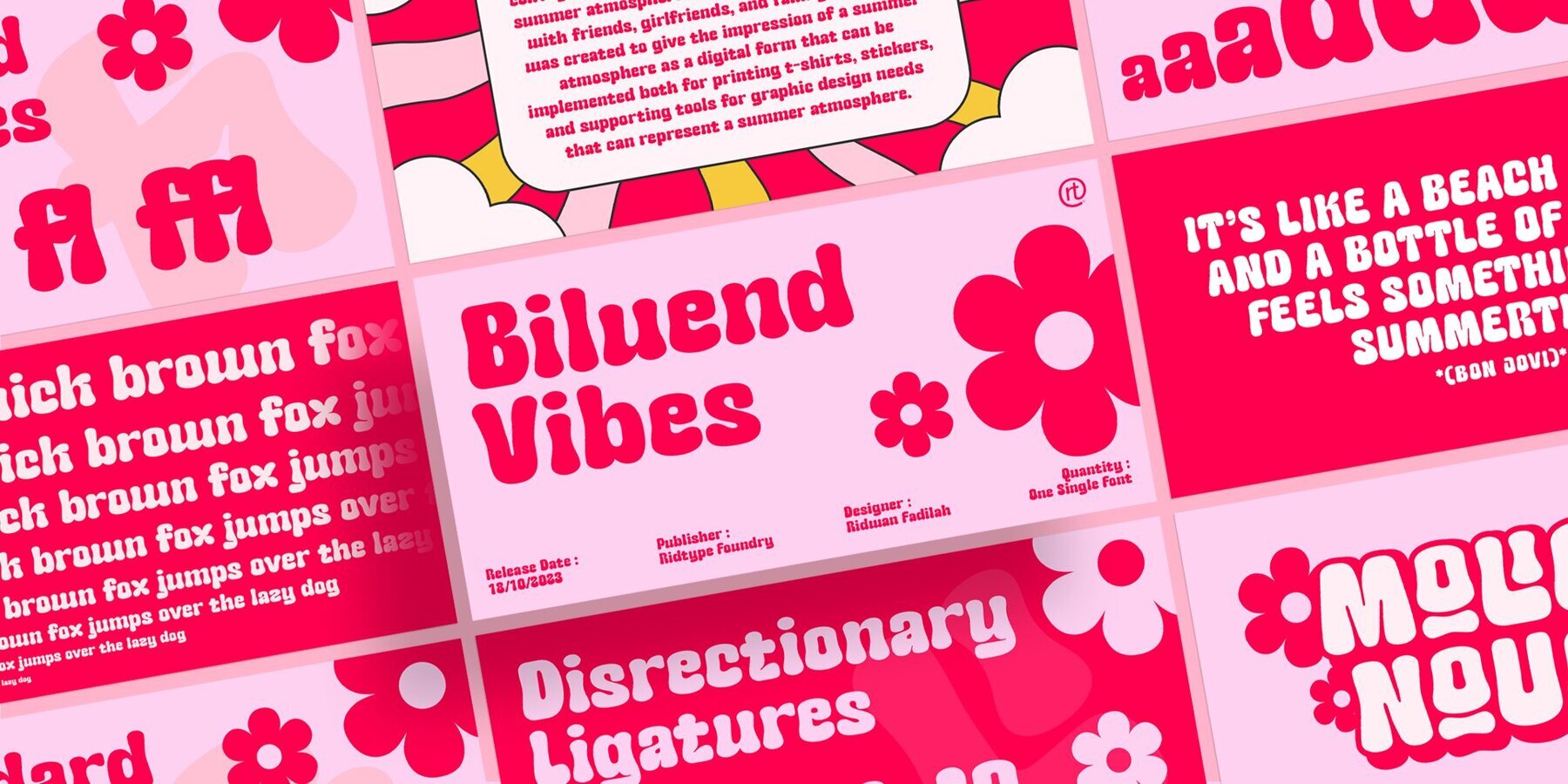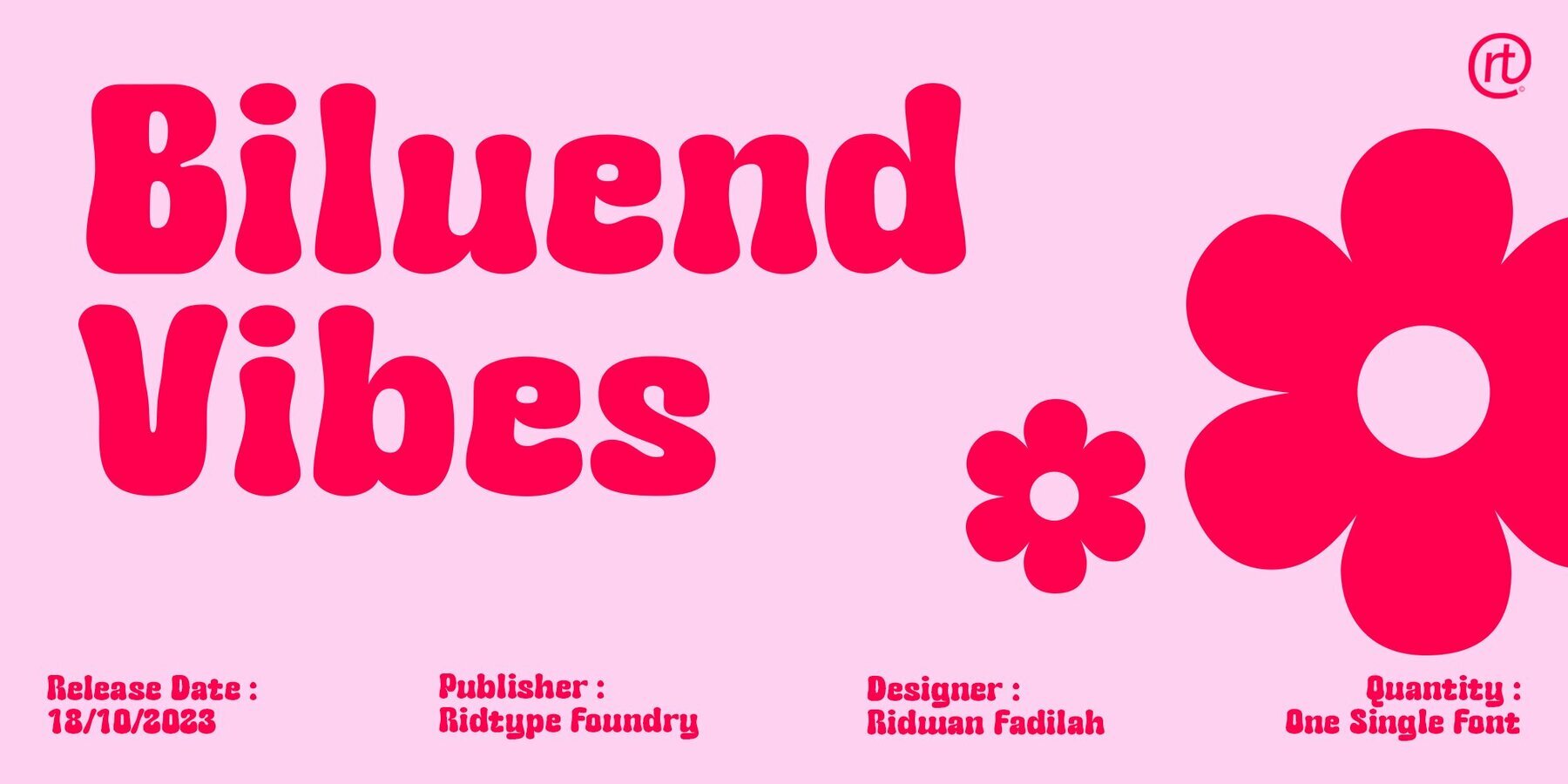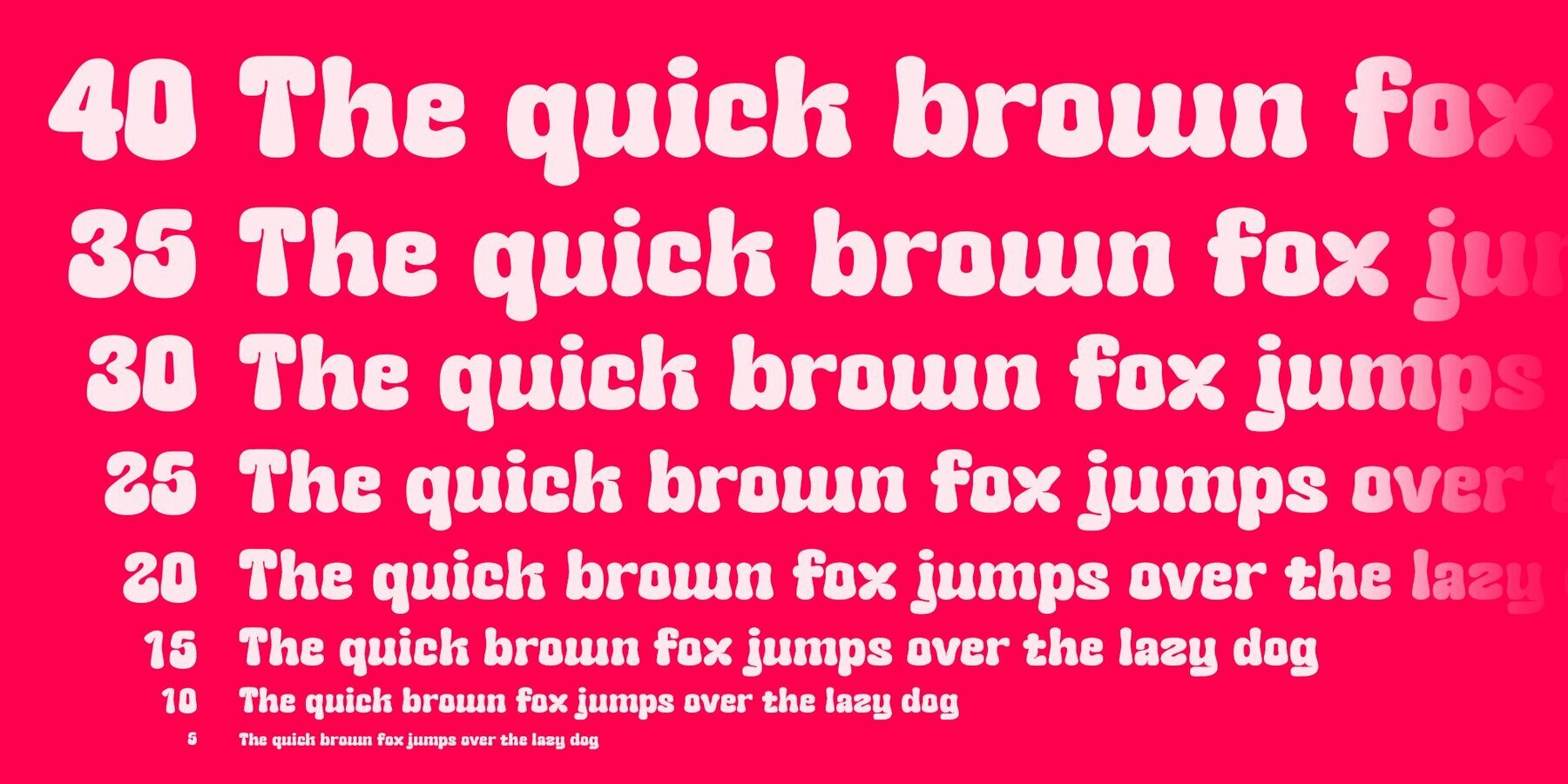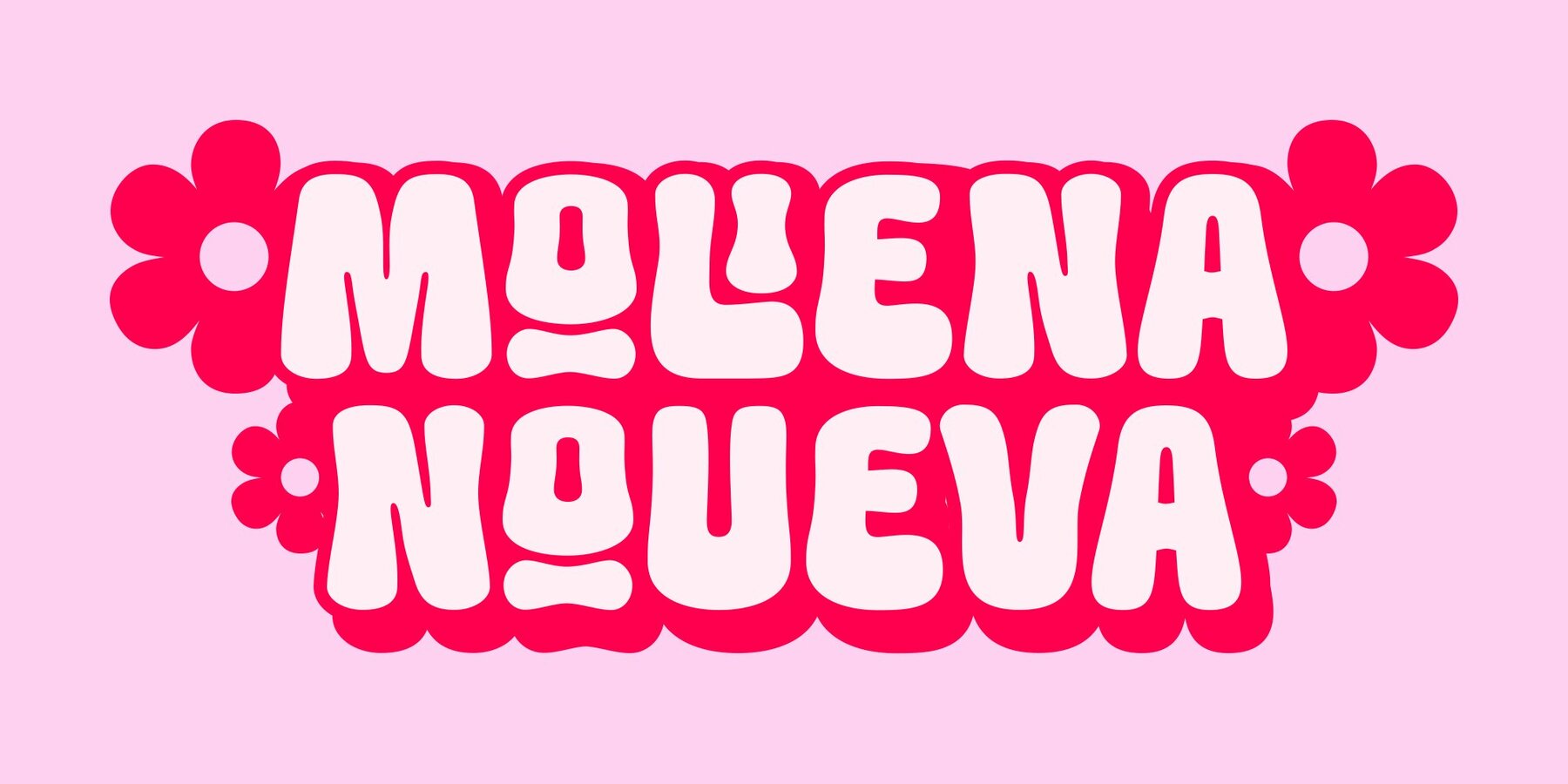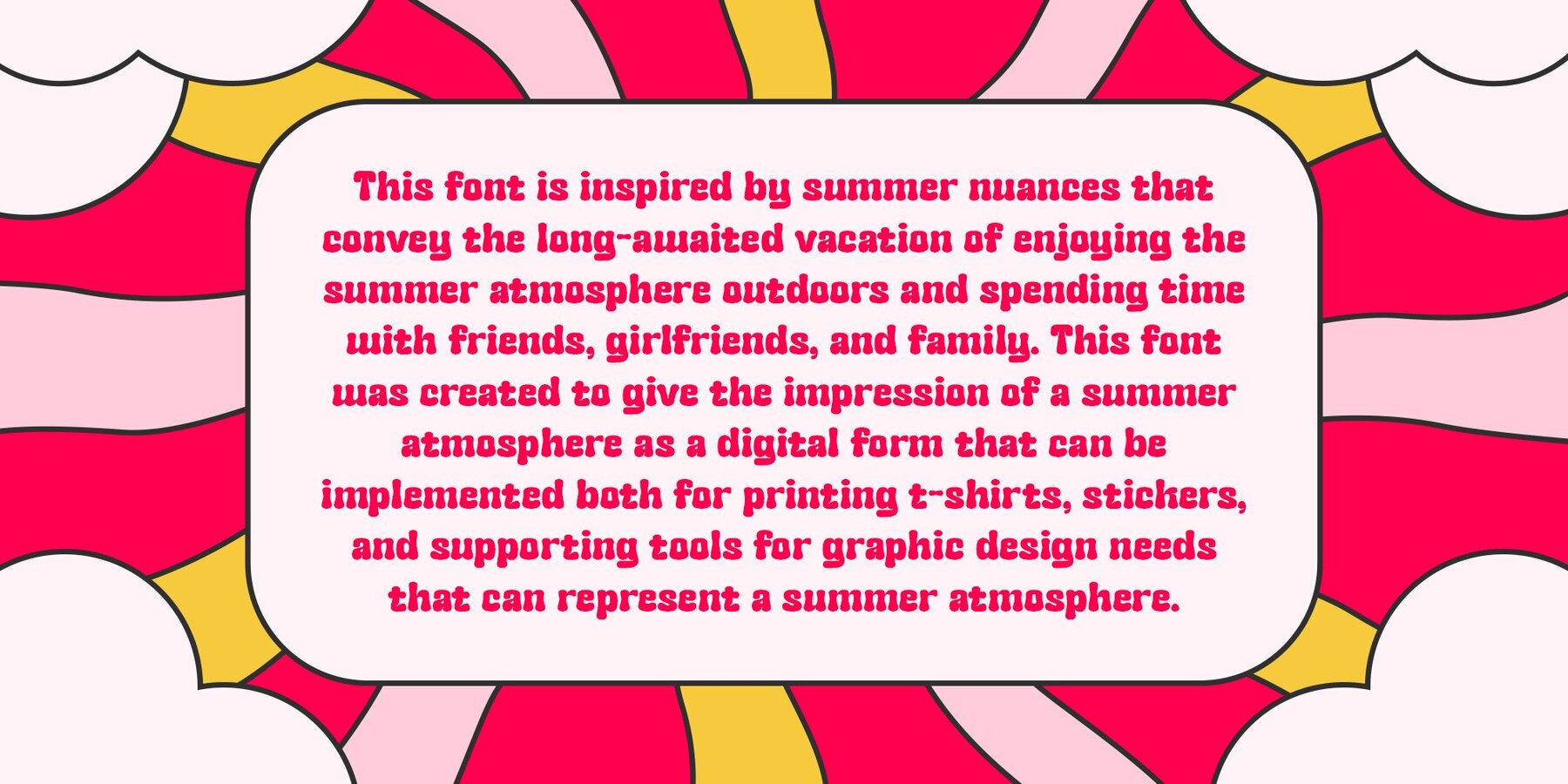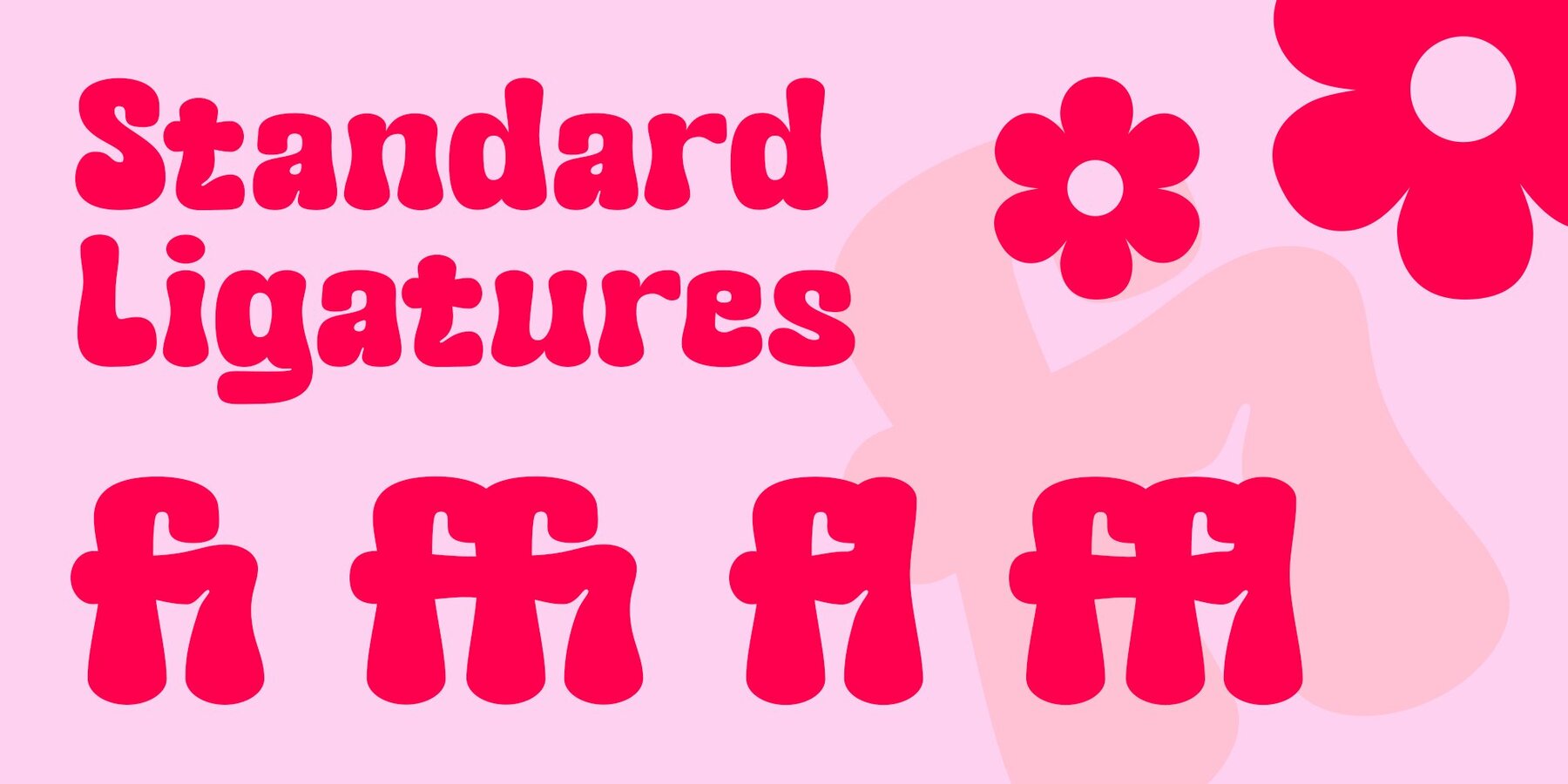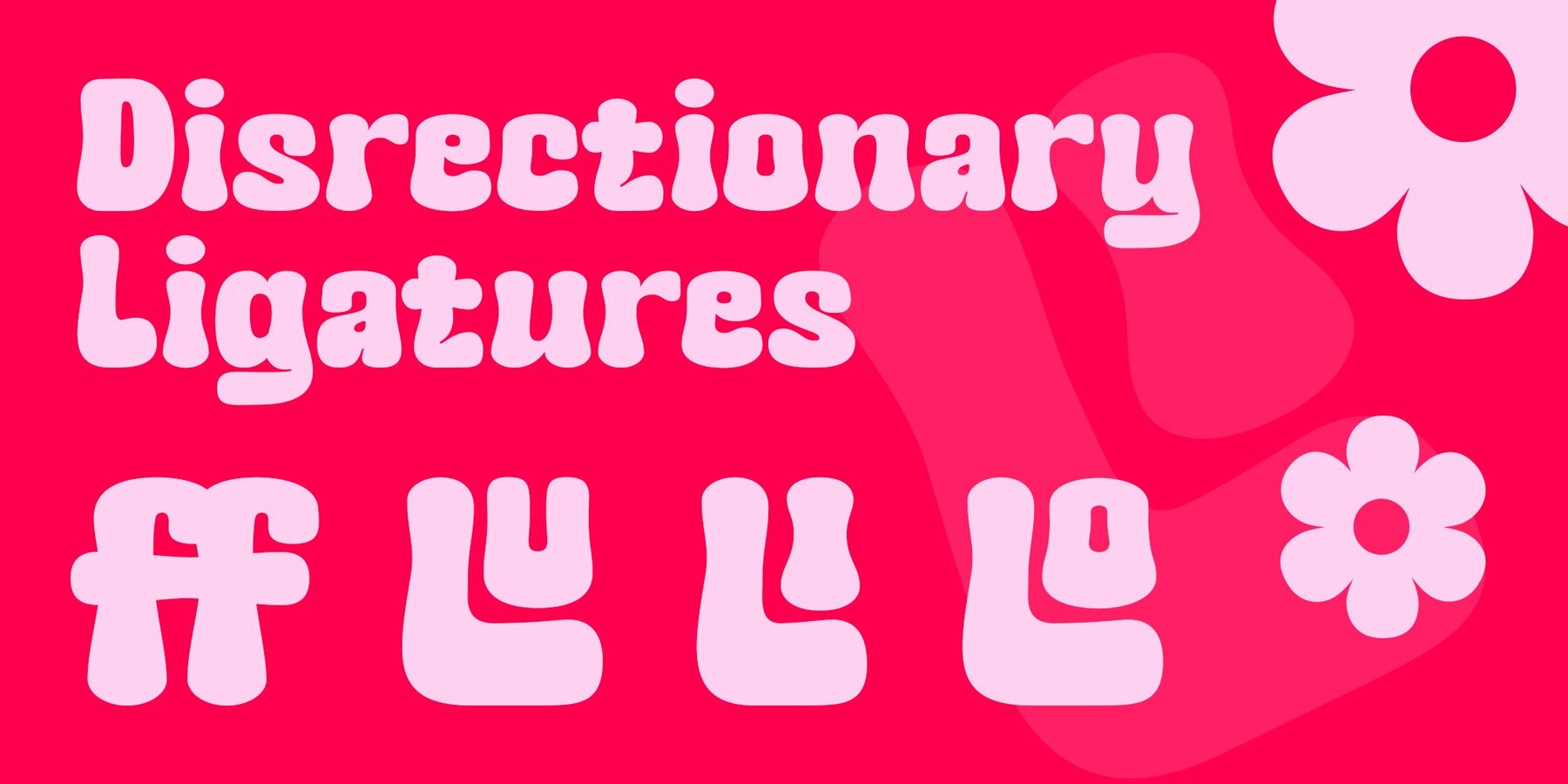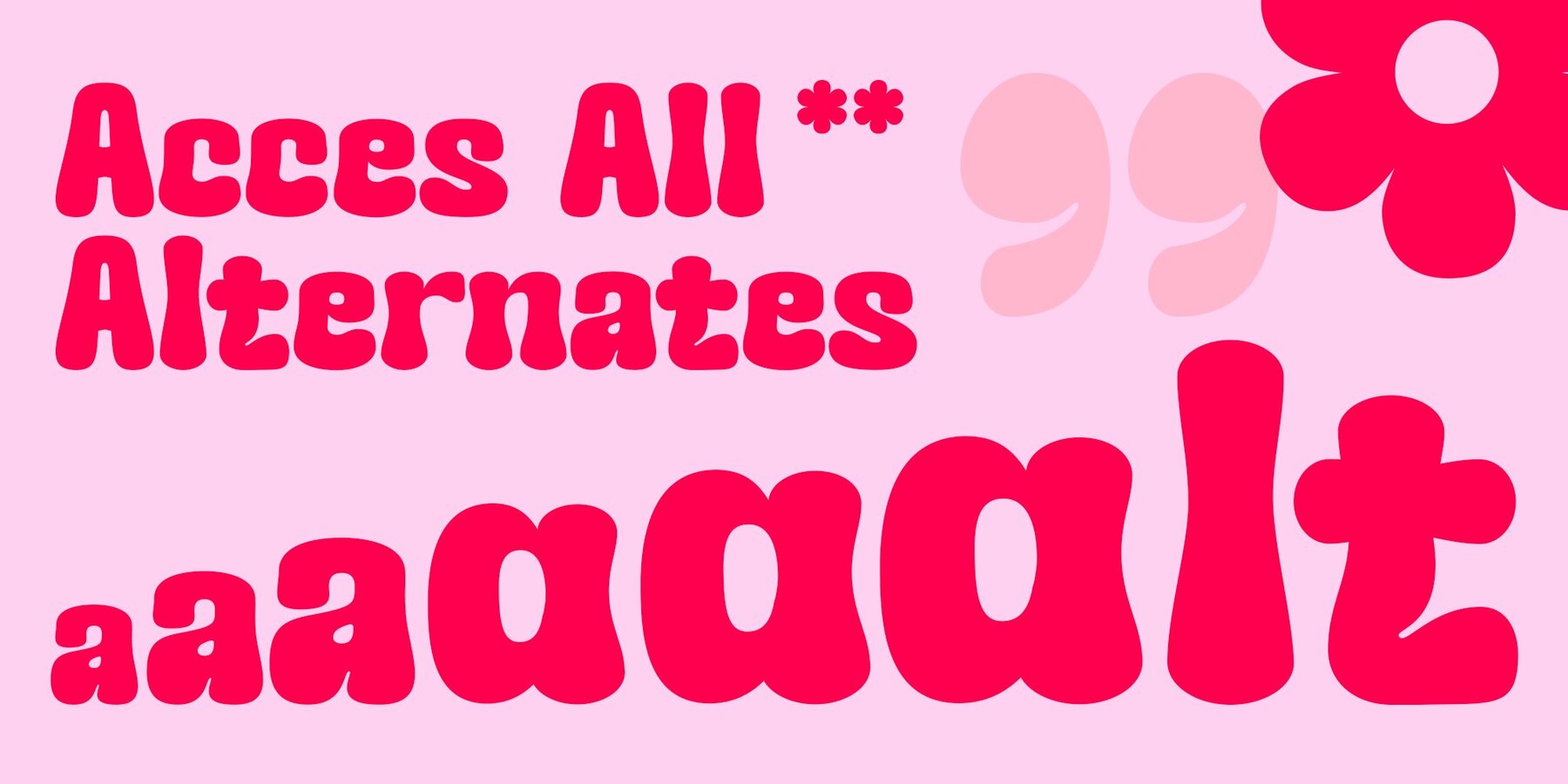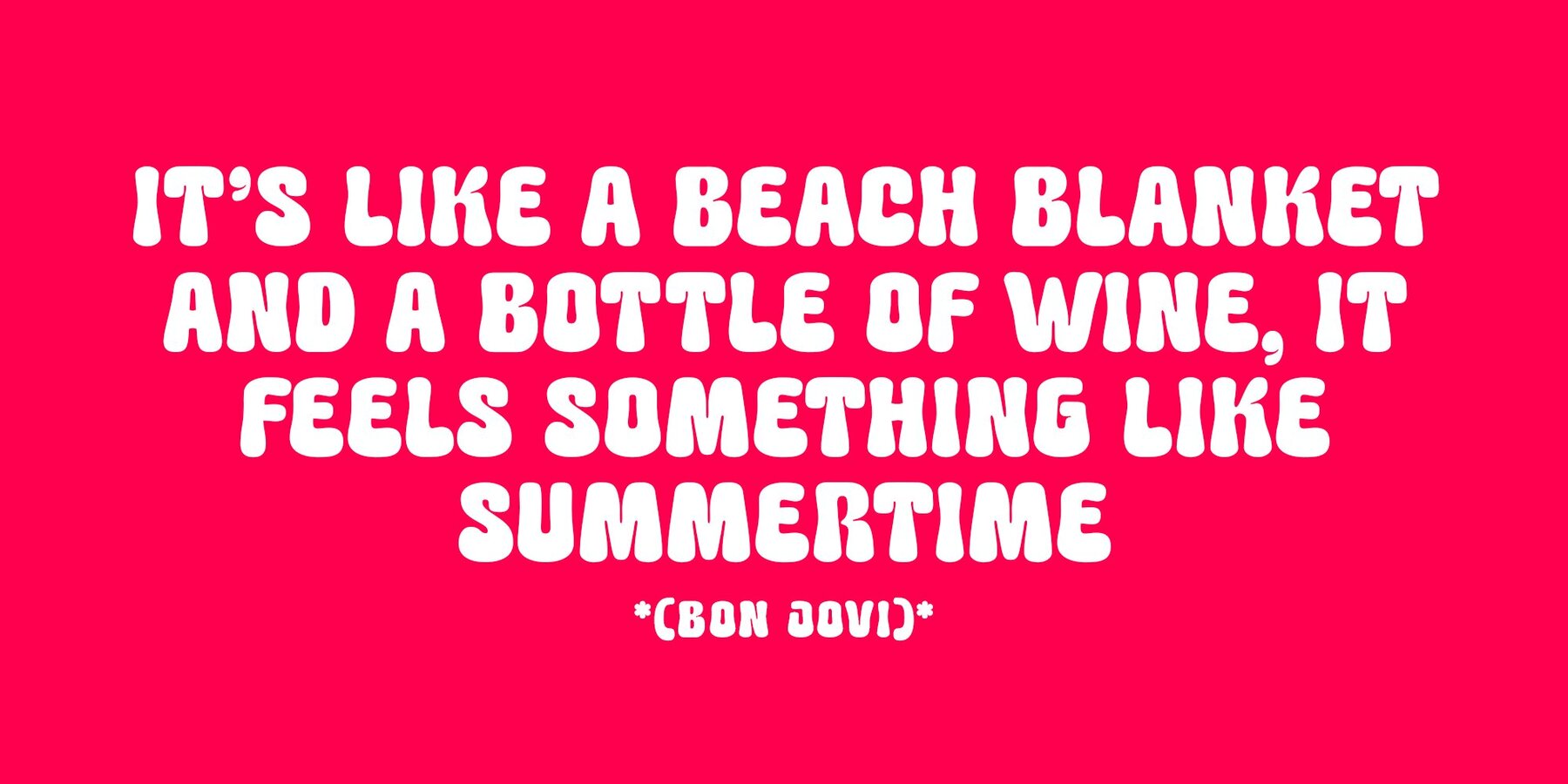
Biluend Vibes Font
Biluend Vibes Bold
This font is inspired by summer nuances that convey the long-awaited vacation of enjoying the summer atmosphere outdoors and spending time with friends, girlfriends, and family. This font was created to give the impression of a summer atmosphere as a digital form that can be implemented both for printing t-shirts, stickers, and supporting tools for graphic design needs that can represent a summer atmosphere.